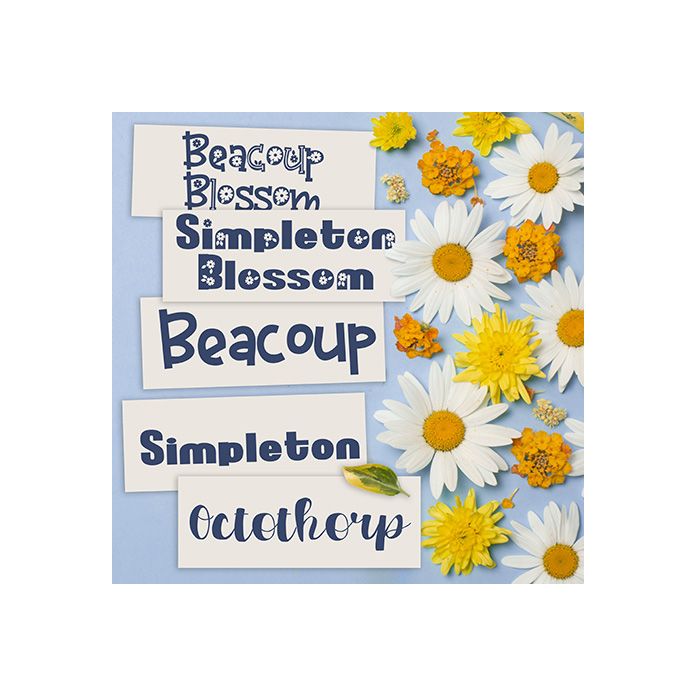
This hand-crafted font bundle features five hand-crafted, fonts that are perfectly coordinated to go together. Two of the fonts are floral infused.
Hand-crafted fonts can be either formal or informal, and they can be used for a variety of purposes. Some of the characteristics of handwritten fonts include: The letters are not perfectly uniform in size or shape. There may be slight variations in the spacing between letters and words. The font may have a "wiggly" or "squiggly" appearance. The font may be difficult to read at small sizes. Handwritten fonts can be a great way to add a casual touch to your designs. They can also be used to create a sense of nostalgia or whimsy. However, it is important to choose a handwritten font that is appropriate for the project you are working on. A formal handwritten font may not be appropriate for a casual invitation, while an informal handwritten font may not be appropriate for a corporate document.